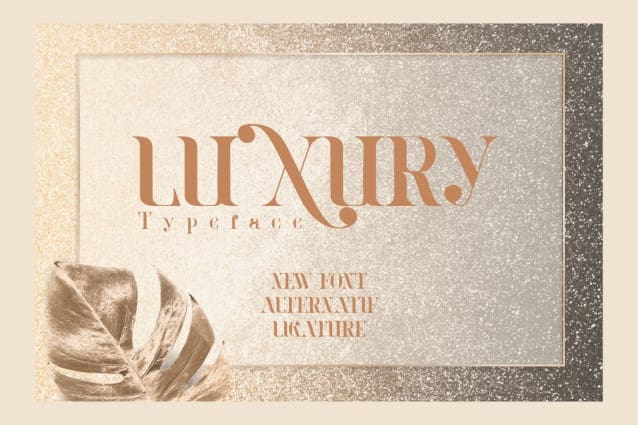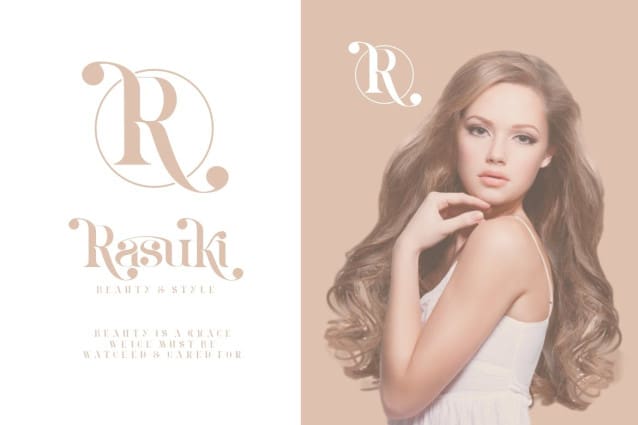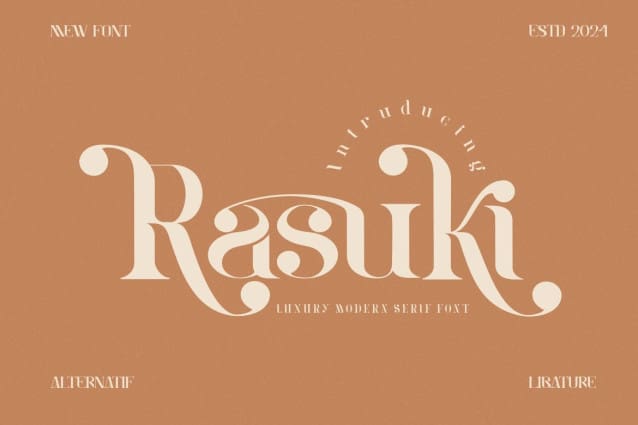
Rasuki Font
Rasuki Font – Luxury Modern Font – Modern Font is a bold and authentic display font. The font is suitable for all branding projects like Logo, t-shirt printing, esports, etc. It is exceptional in a wide range of contexts